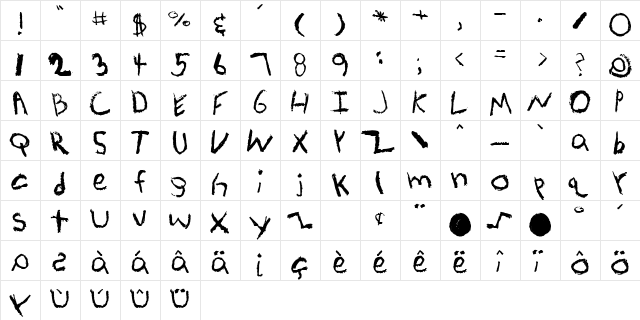
KidTYPE CrayonA
Design Context for KidTYPE Typeface
KidTYPE is a composed and adaptable typeface that performs quietly and consistently across a wide range of design contexts.